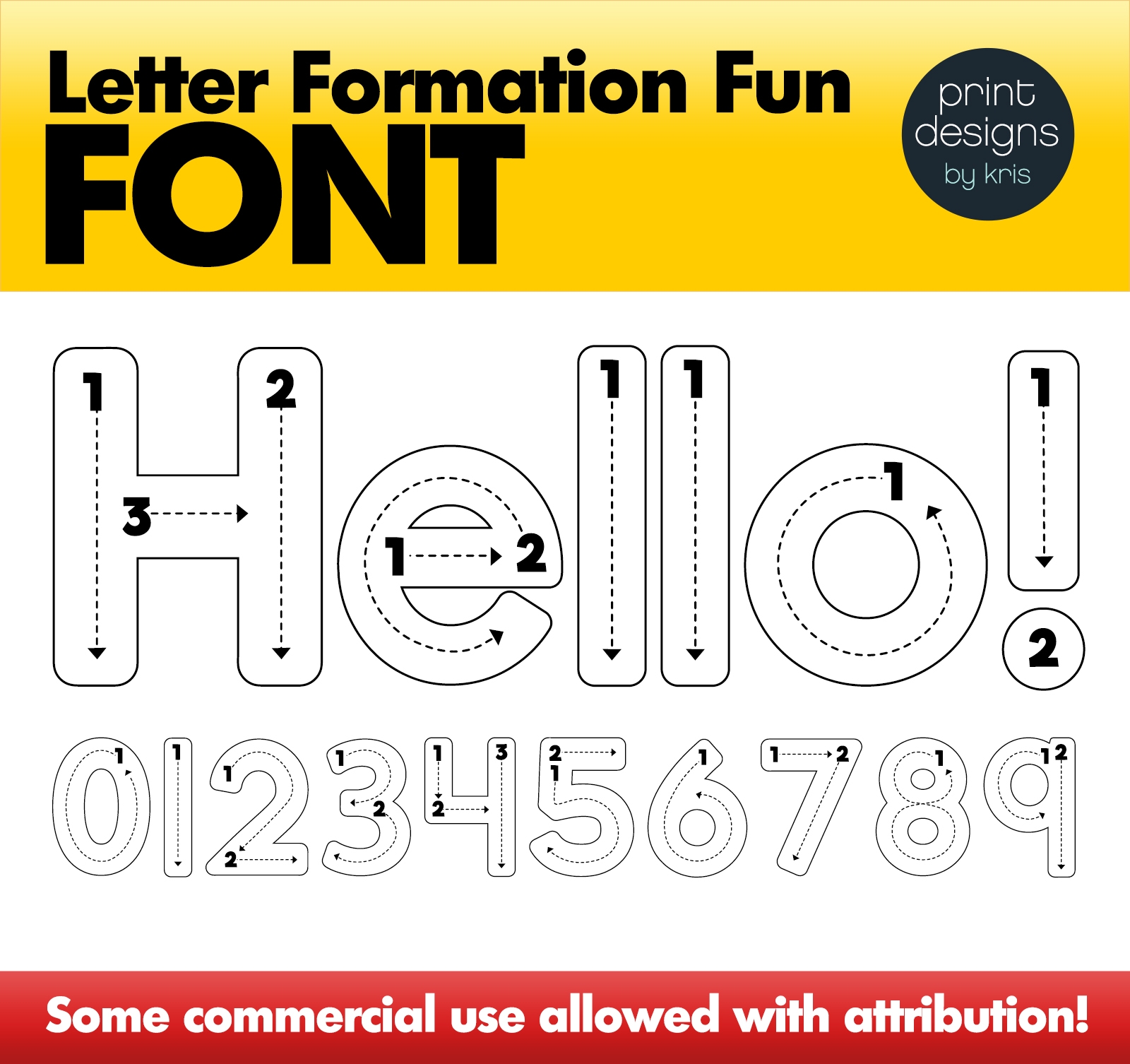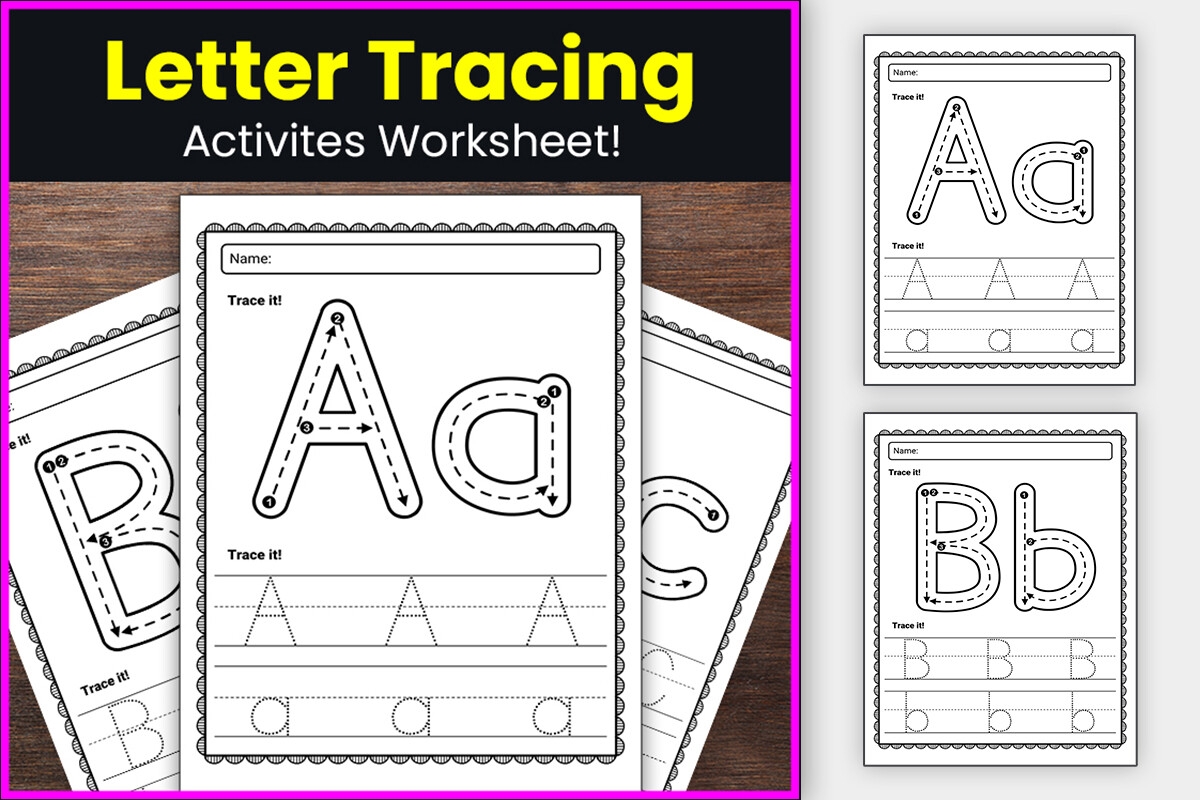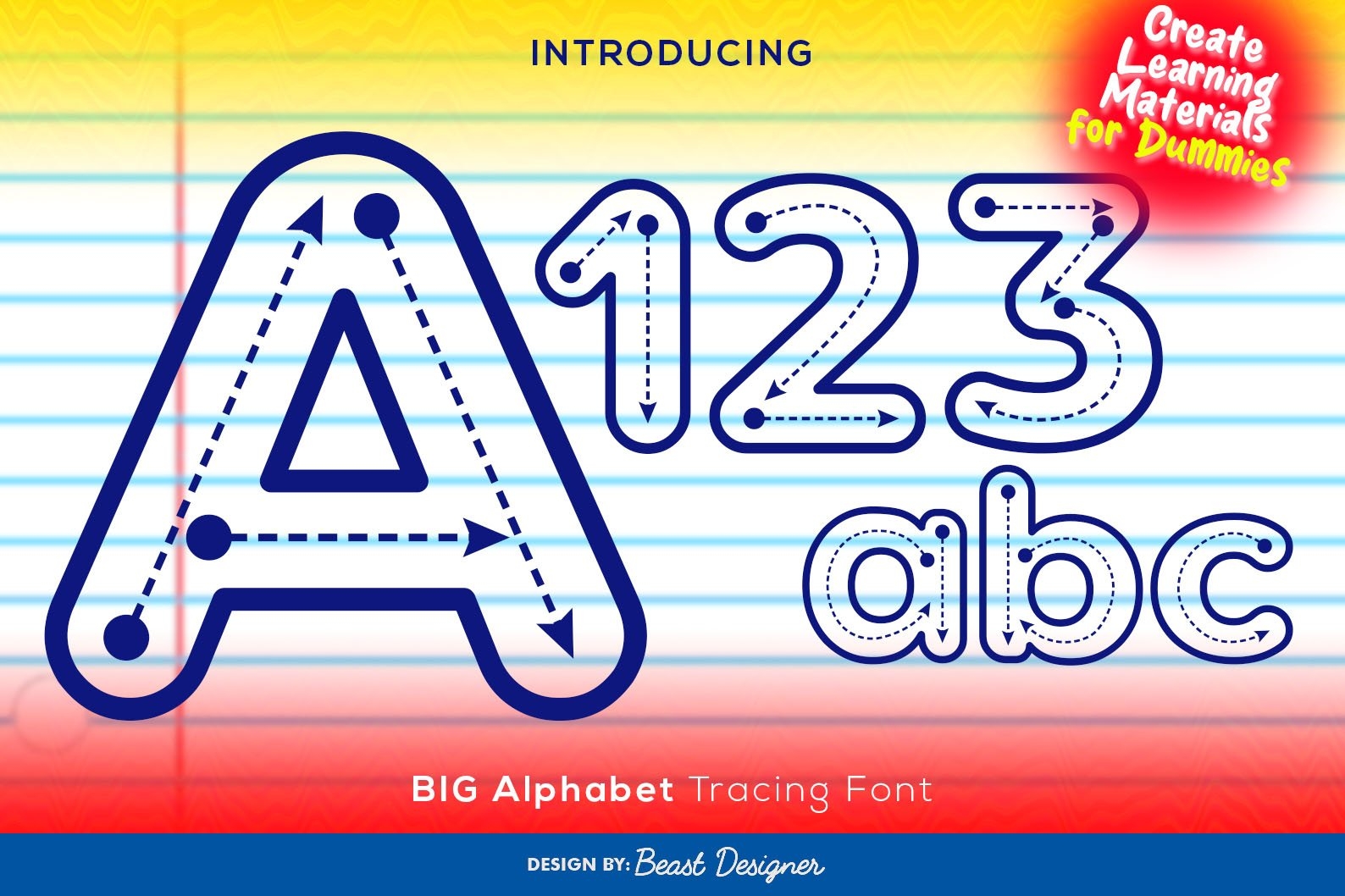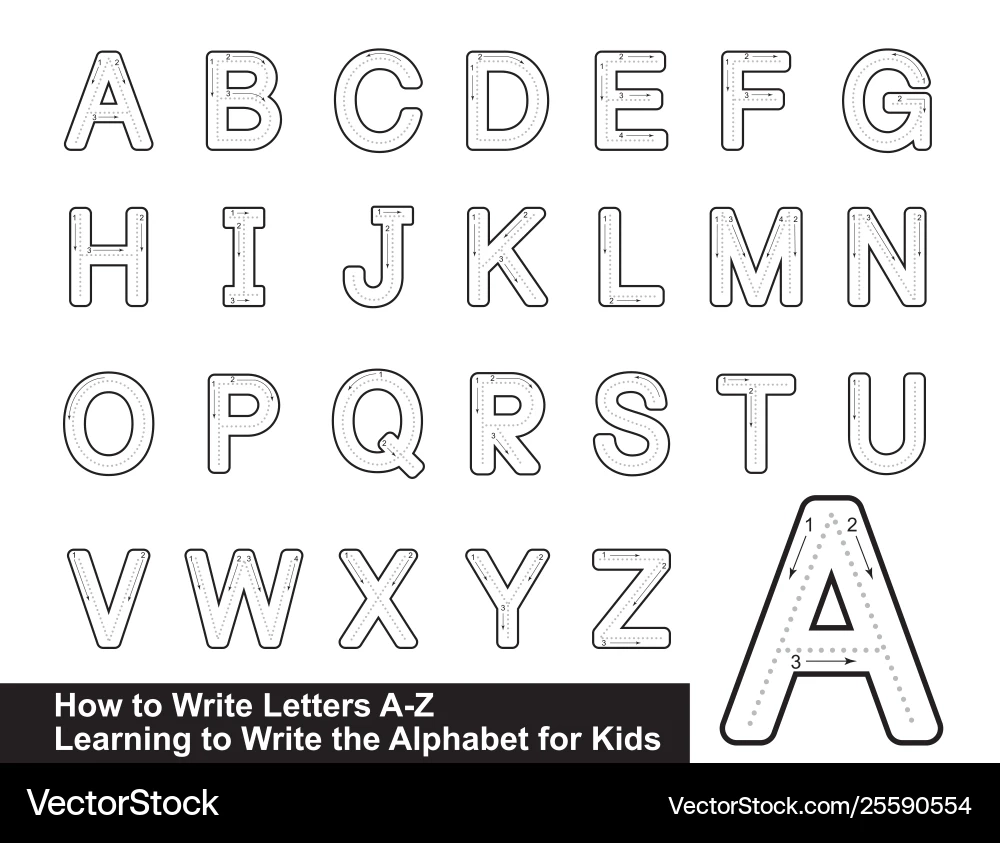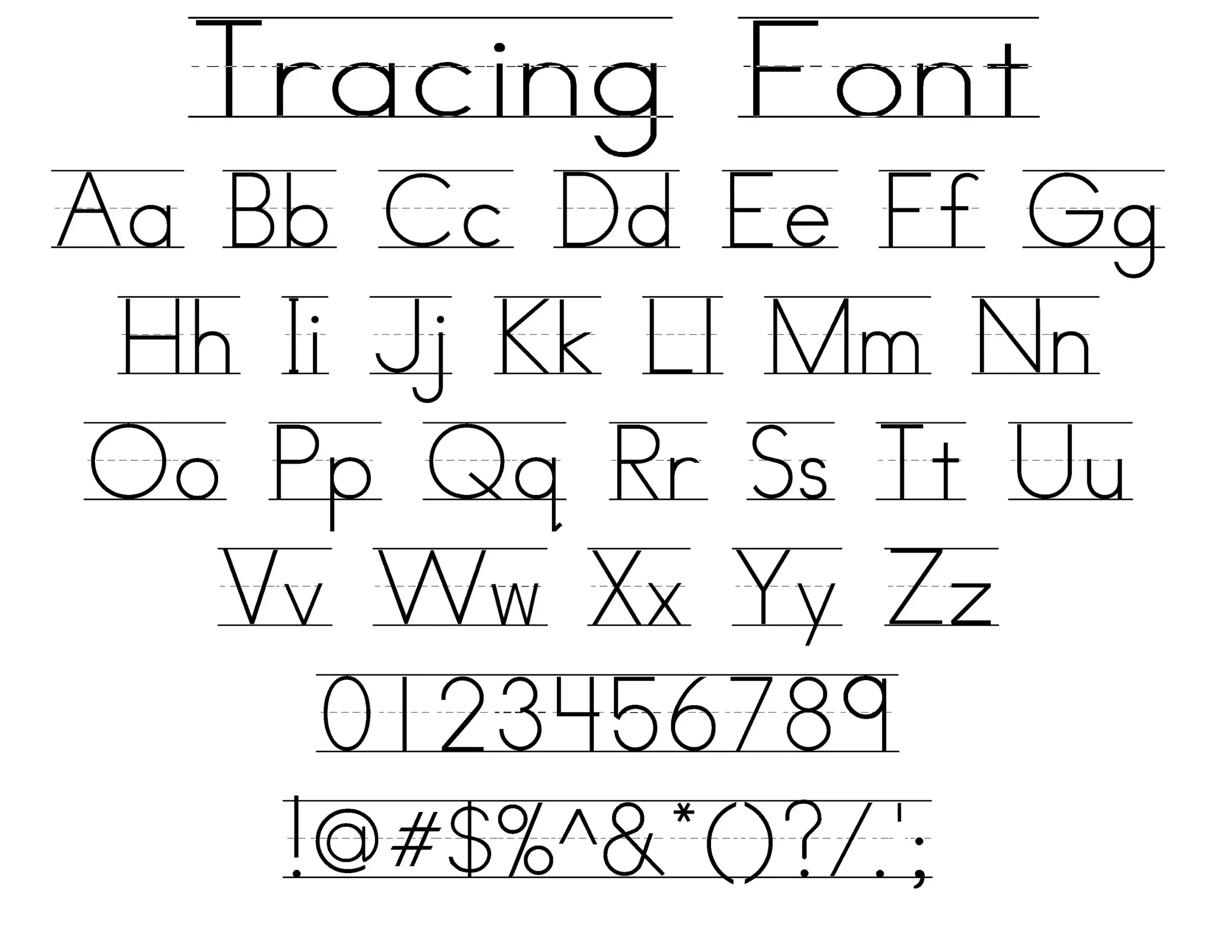
Tracing alphabet fonts are a fun and engaging way to help children learn how to write. These fonts provide a visual guide that makes the learning process enjoyable and effective. Kids can easily follow the lines, improving their handwriting skills.
Tracing alphabet fonts come in various styles, catering to different age groups and learning levels. Some fonts are designed for beginners, while others challenge more advanced writers. This variety ensures that every child finds a suitable option.
Using tracing alphabet fonts can be as simple as printing worksheets or using digital tools. Many websites offer free resources, allowing parents and teachers to access a wide range of tracing materials. This accessibility makes learning to write more convenient.
Incorporating tracing alphabet fonts into daily activities can make writing practice feel less like a chore. Children can trace letters while playing games or completing fun exercises. This approach keeps them engaged and eager to learn more.
Ultimately, tracing alphabet fonts serve as an excellent resource for developing writing skills. By making learning enjoyable, children are more likely to embrace writing and improve their abilities over time. It’s a win-win for both kids and educators!